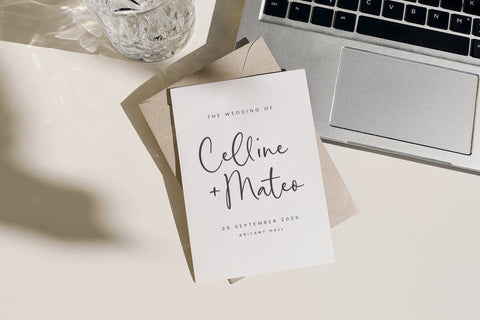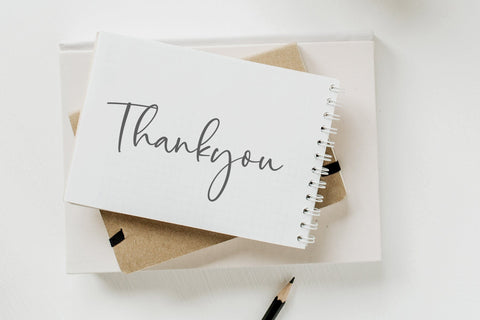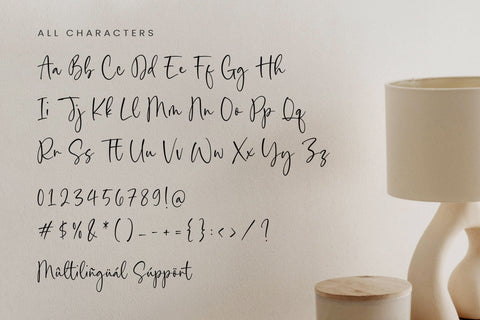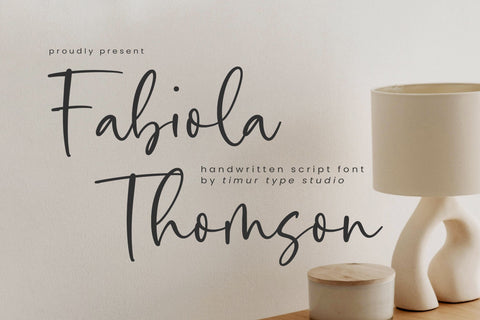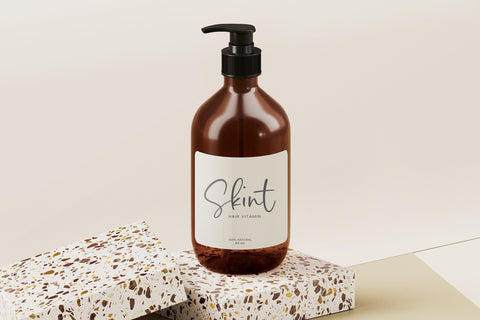
Fabiola Thomson - Handwritten Script Font
Fabiola Thomson is a Handwritten Script Font
This font is a charming and enchanting choice for your design projects. With its beautiful and graceful letterforms, this font exudes elegance and sophistication. The hand-drawn details and delicate strokes add a sense of individuality and personal touch to any text. The Fabiola Thomson font is perfect for creating wedding invitations, logos, and branding materials that require a touch of romance and femininity. Its whimsical and artistic style will captivate your audience, bringing a sense of beauty and enchantment to your designs. Embrace the elegance of the Fabiola Thomson handwritten script font and let your creativity soar.
Fabiola Thomson Font also supports multilingualism.